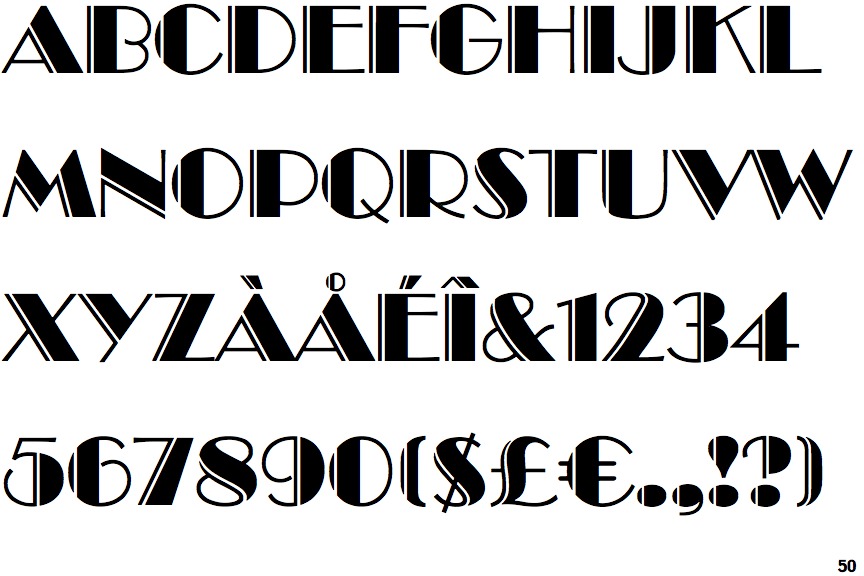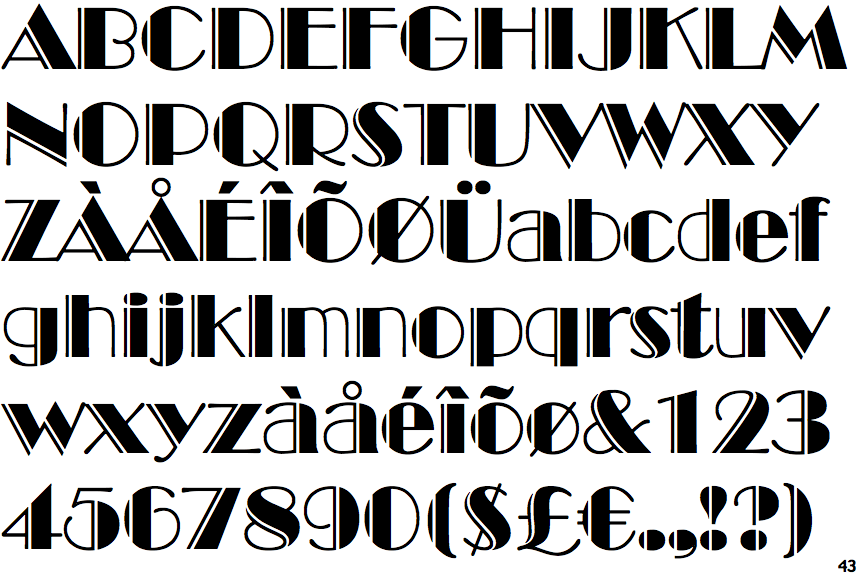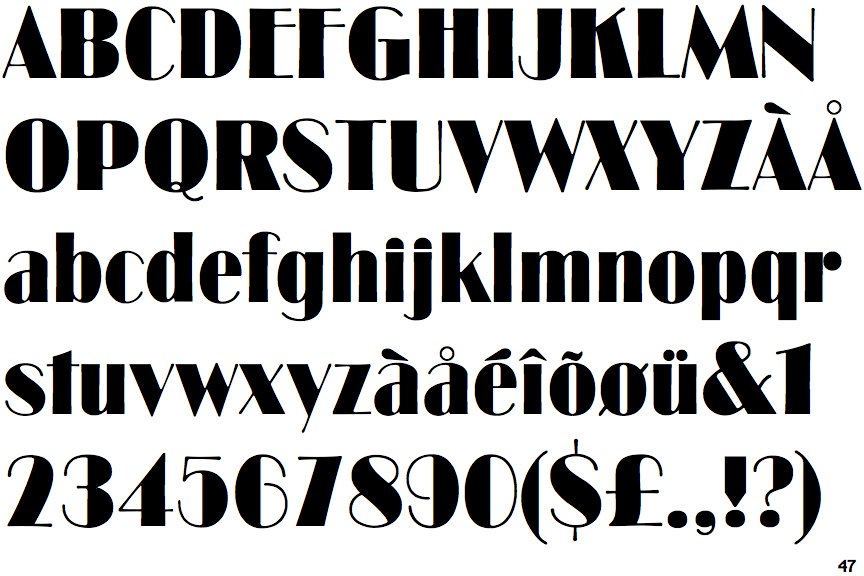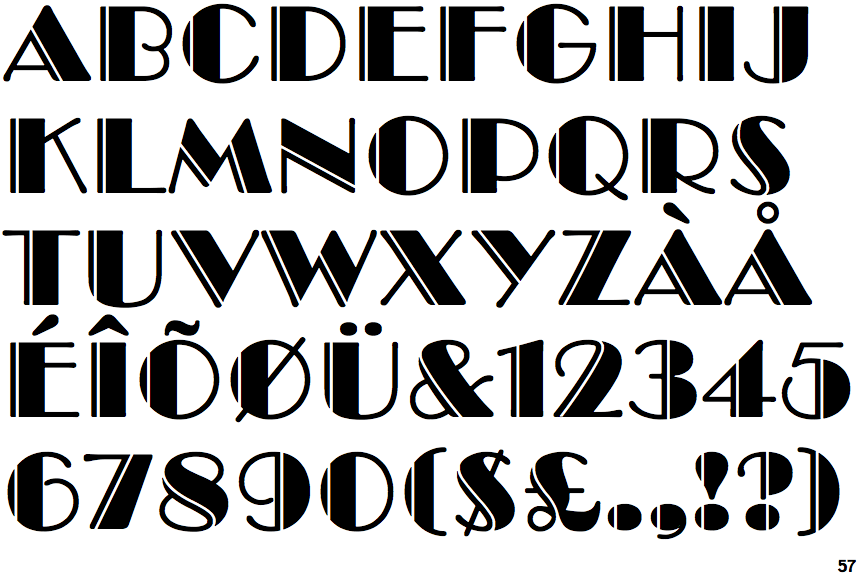
Finding Fonts Similar To Broadway
Broadway is a classic font known for its thick, bold lettering and elegant curves. It is one of the most recognizable typefaces in the world, and has been used for decades in advertising, signage, and product branding. It is also one of the most popular fonts for creating logos and unique designs. But what if you want to find a font similar to Broadway, but with a slightly different look?
There are a few great options when it comes to finding fonts similar to Broadway. Some of these fonts are free to use while others come with a price tag. No matter the choice, there are plenty of fonts that have the same look and feel as Broadway, but with slight variations in lettering. Here are some of the best fonts similar to Broadway:
Gotham
Gotham is a sans-serif font that shares many of the same characteristics as Broadway. It is bold and thick, with a modern, sleek look. The lettering is slightly different, but it still has that timeless, classic feel. It is perfect for logos, advertising, and other design projects where you want an old-school look without the classic feel.
Bodoni
Bodoni is an old-school serif font that has many similarities to Broadway. It has thick lettering with elegant curves, but the lettering has a slightly more angular look than Broadway. It is a great choice for classic designs, but it can also be used for modern projects. The unique lettering of Bodoni makes it stand out from other fonts.
Neo Sans
Neo Sans is a modern, sans-serif font that has a similar look to Broadway. It is a thicker font, with bold lettering and curves. The lettering is slightly more rounded than Broadway, which gives it a softer look. It is perfect for modern designs that need a classic, timeless feel.
Neutraface
Neutraface is a sans-serif font with a modern, geometric look. It has bold, thick lettering with subtle curves. The lettering is slightly different from Broadway, but the overall feel is similar. It is perfect for modern designs that need a classic feel.
Finding fonts similar to Broadway can be a challenge, but there are plenty of great options. Whether you are looking for a free font or one with a price tag, there are plenty of fonts that have the same look and feel as Broadway, but with slight variations in lettering. No matter the choice, these fonts will give your design project that classic, timeless feel. So go ahead and pick the perfect font for your project.